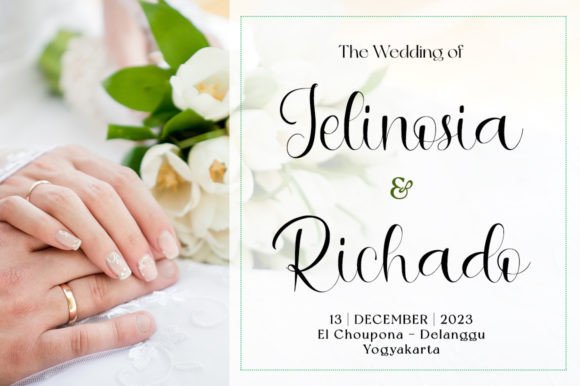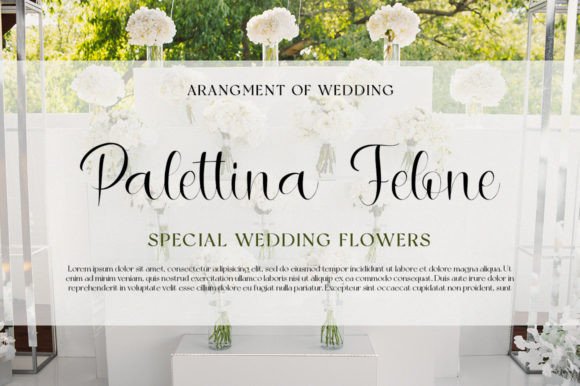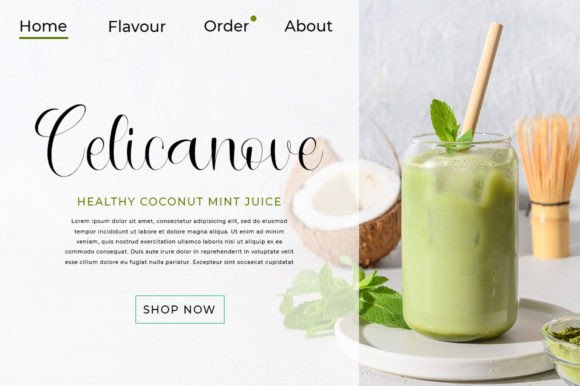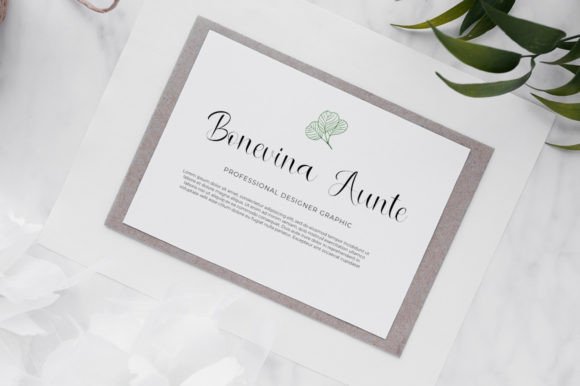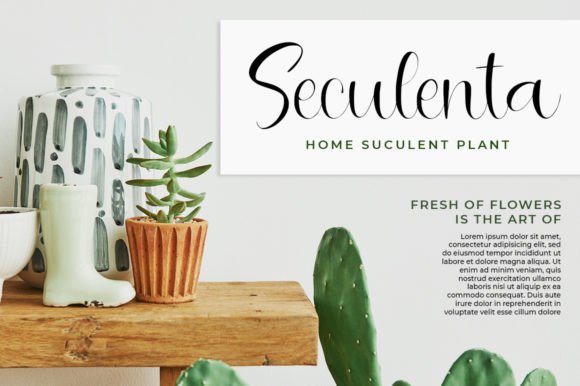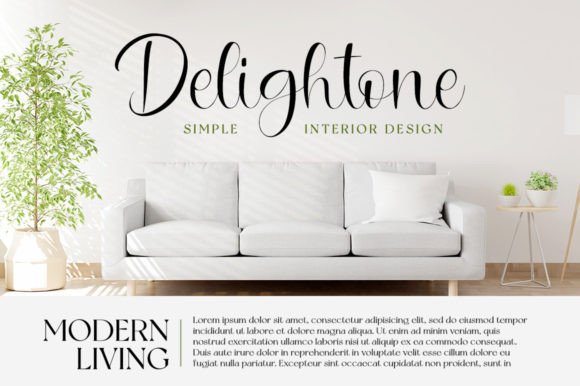
Introduction to Onelivane Font
Onelivane script is a stylish font style.
This beautiful script font offers your personal touch to your latest art project with an elegant, classy, and modern look The Onelivane Script offers gorgeous typographic perfect for many projects such as logos & branding, invitations, stationery, wedding designs, social media posts, advertisements, and product packaging.
Onelivane Font offers exceptional quality and versatility, making it a valuable addition to your design toolkit. Whether you’re creating for personal projects or commercial use, Onelivane Font delivers professional results.